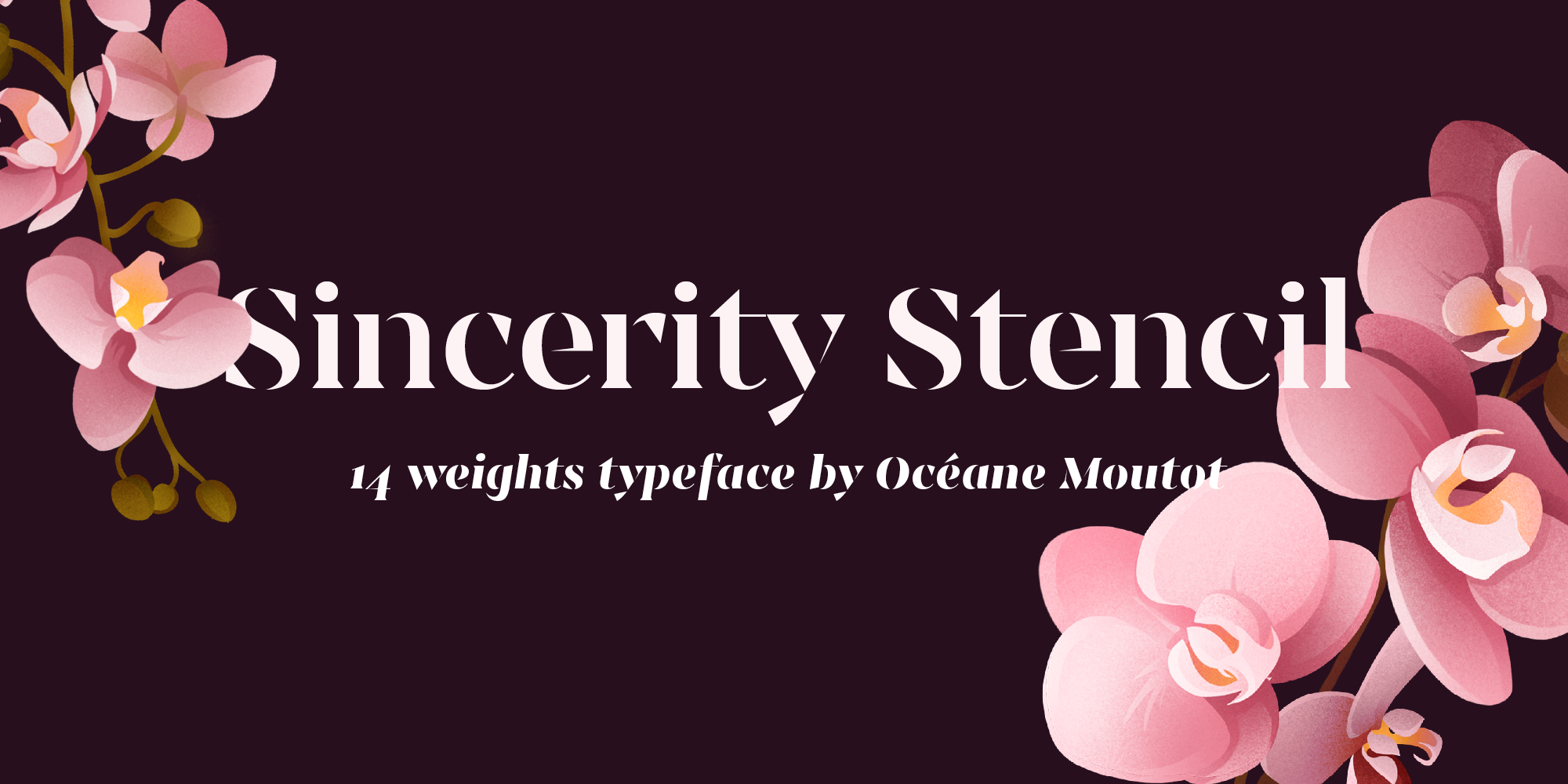
Sincerity Stencil Font is perfect for military organizations, industrial signage, authentic vintage branding, warehouse logistics, shipping companies, tactical gear brands, honest craft businesses, and straightforward communications that require stencil typography with genuine character and unpretentious reliability that communicates direct, honest messaging.
What makes Sincerity Stencil Font exciting is its remarkable ability to convey authentic honesty and straightforward communication through traditional stencil letterforms that embody practical functionality. This dependable typeface features clean breaks and utilitarian characteristics that communicate sincerity and genuine reliability, making it ideal for brands prioritizing honest communication over flashy presentation.
The Sincerity Stencil Font family includes light, regular, and bold weights, complemented by condensed variations for space-efficient industrial applications. Each style maintains the font's characteristic honest appeal while providing designers with comprehensive tools for creating straightforward layouts and authentic brand communications that build trust through genuine transparency.
Industrial professionals consistently select Sincerity Stencil Font Free Download for projects requiring authentic credibility and honest communication. This versatile typeface seamlessly conveys reliability while maintaining excellent legibility in demanding environments, ensuring brand messages resonate with audiences seeking genuine products and services from trustworthy, unpretentious organizations.
The font's stencil heritage and sincere character make it particularly suitable for industrial and military sectors. Sincerity Stencil Font delivers exceptional authentic impact while ensuring optimal readability across harsh conditions, offering designers a dependable solution for creating memorable brand identities that communicate honesty, reliability, and sincere excellence across industrial and authentic marketing applications.